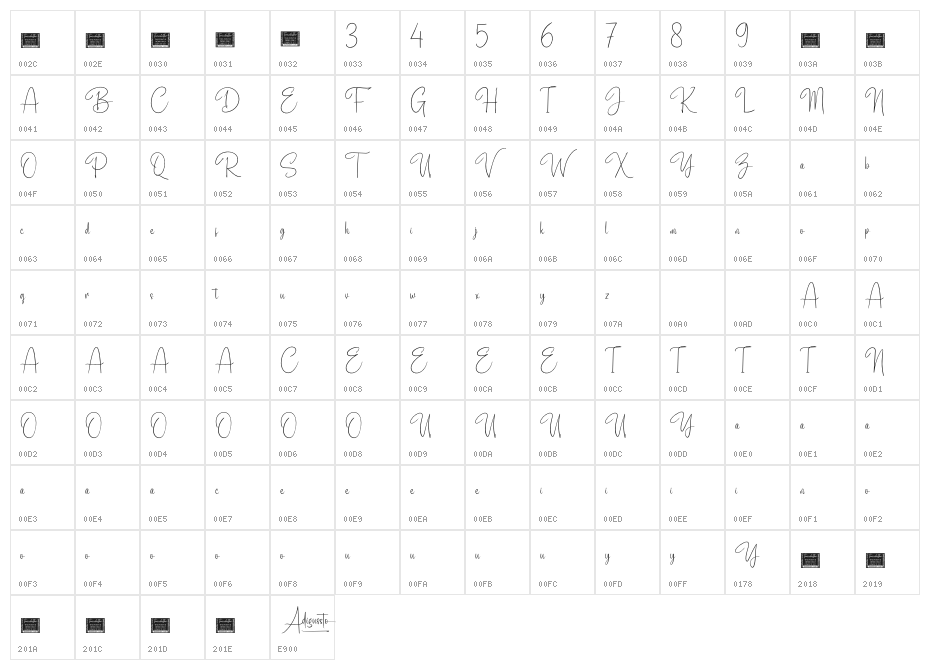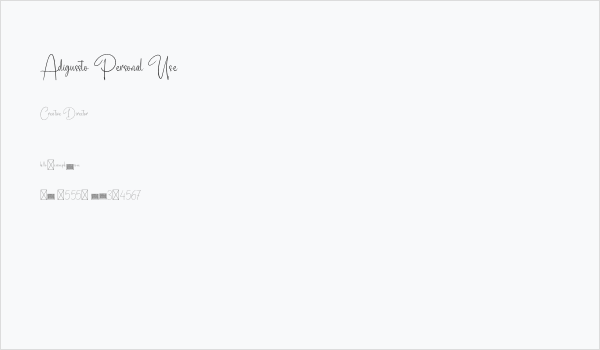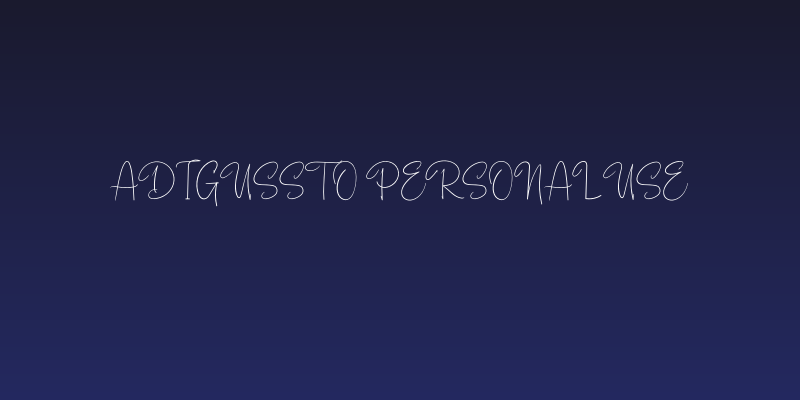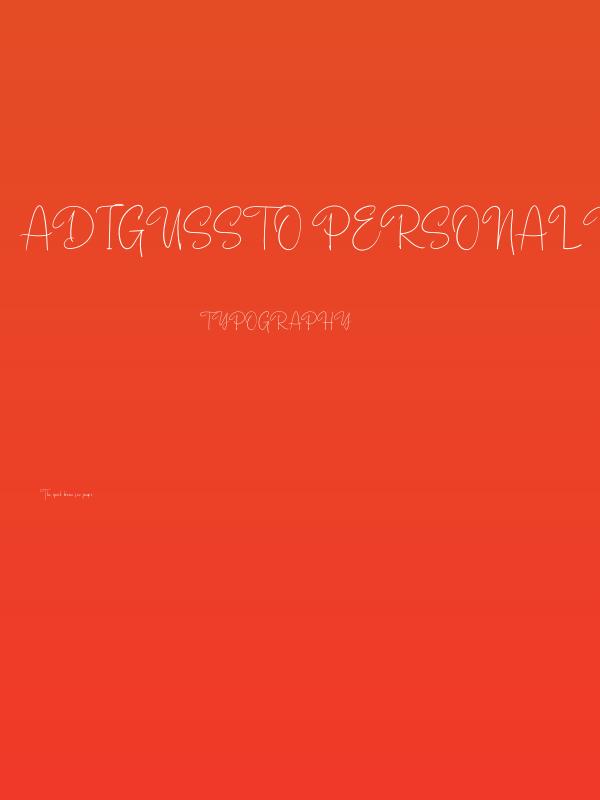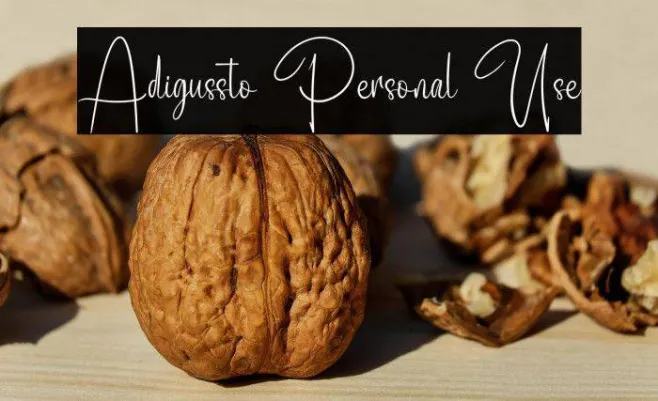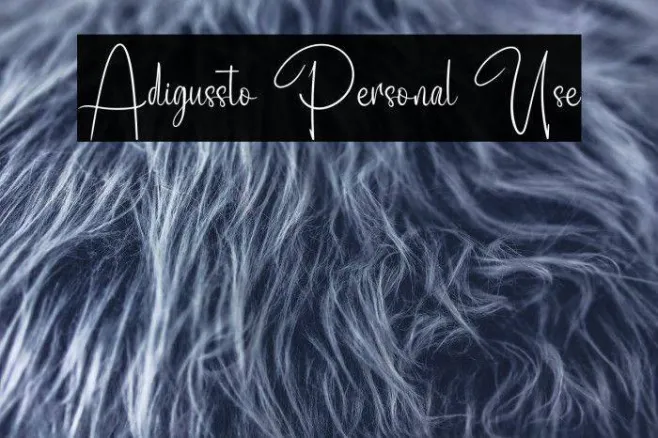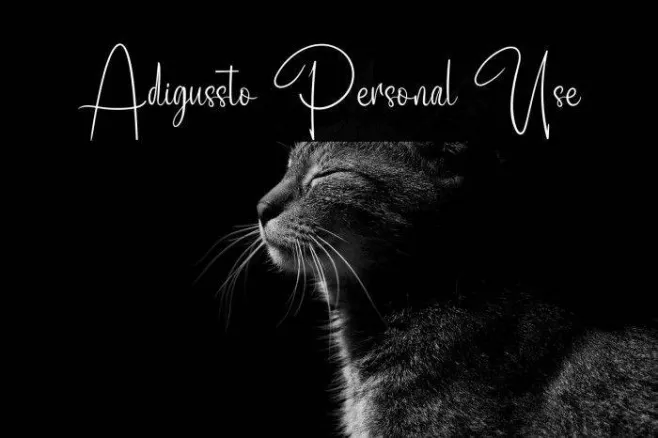
Adigussto Personal Use Font
Adigussto Personal Use Description
This font features an elegant and flowing script style, characterized by its smooth, cursive strokes and delicate lines. The uppercase letters are tall and graceful, with a slight slant that adds a sense of movement and fluidity. The lowercase letters maintain a consistent style, with rounded forms and subtle connections between characters. The numerals are slender and maintain the same elegant style as the letters, ensuring a cohesive look across all characters. Special characters are included, matching the overall aesthetic with their refined curves and loops.
| Overall Style | Elegant, Decorative |
| Proposed Projects | Ideal for wedding invitations, greeting cards, personal branding, and elegant logo designs. |